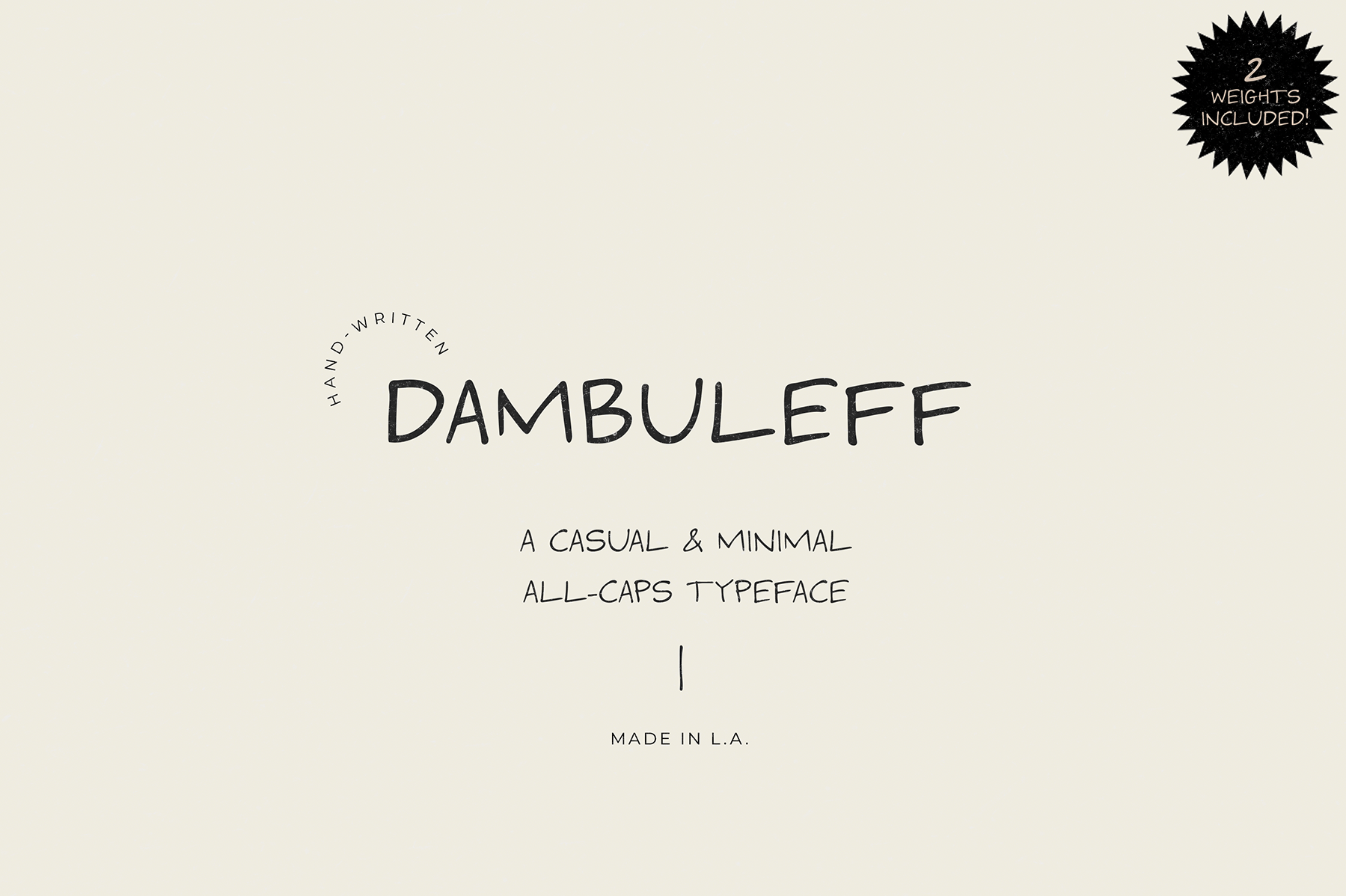
DAMBULEFF Minimal Handwritten Font
DAMBULEFF is a neutral, hand-written all-caps typeface that was inspired by an LA chef's handwriting on menus and labels. If you're tired of seeing the same hand-written fonts that are too girly, too swirly or too cute, this is for you!
- Dambuleff Regular: Uppercase letters, numbers, extended punctuation, some dingbats
- Dambuleff Medium: Uppercase letters, numbers, extended punctuation, some dingbats
- Accent, currency support for international usage